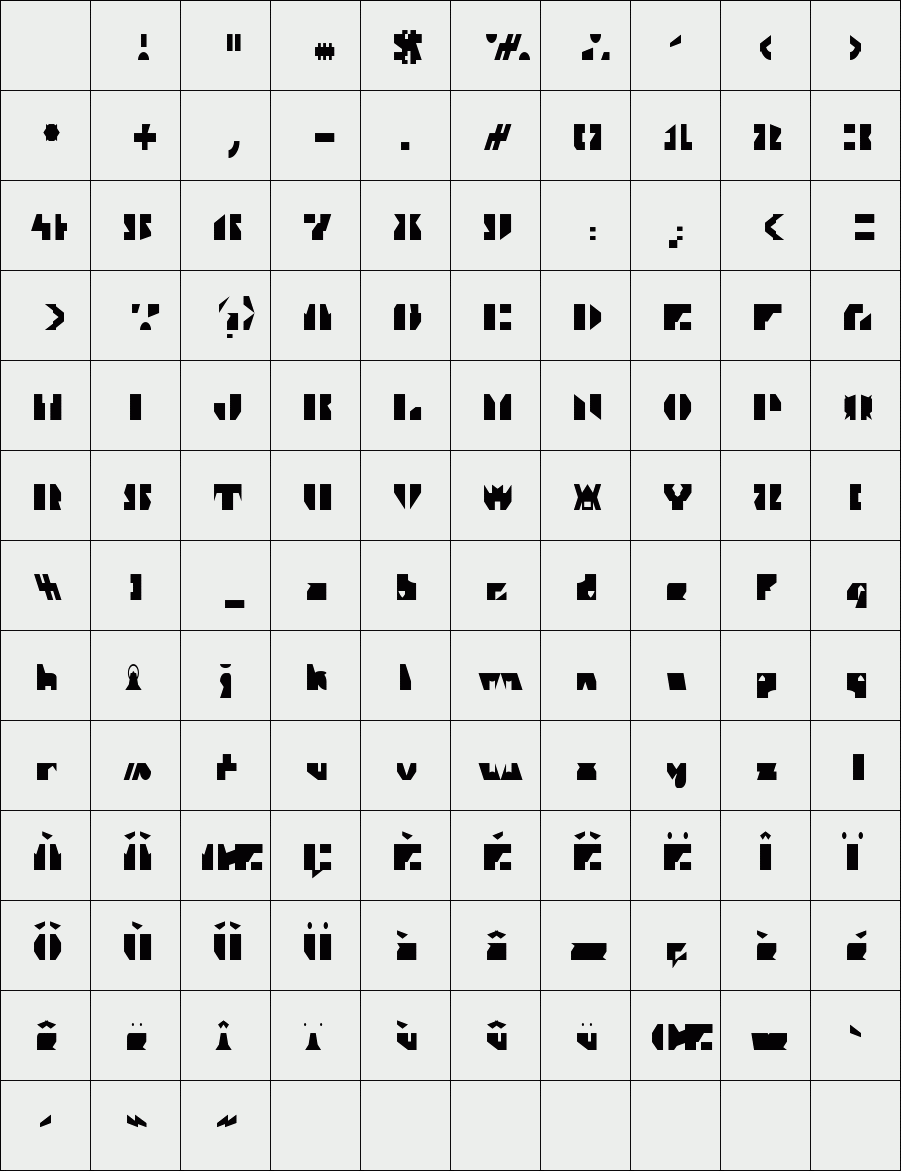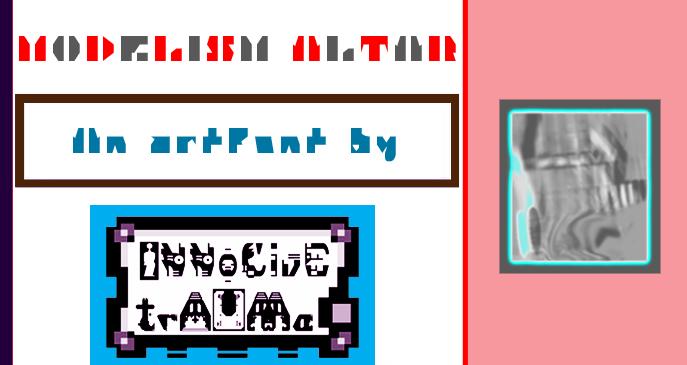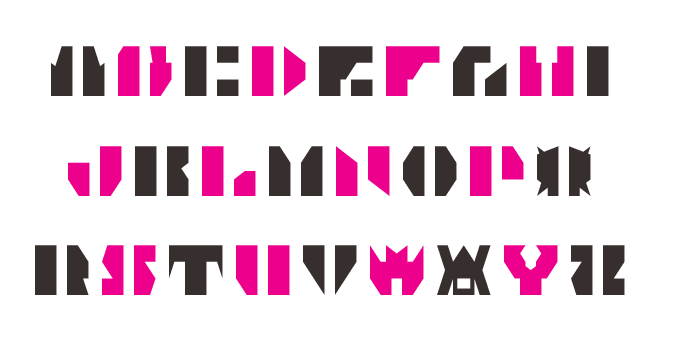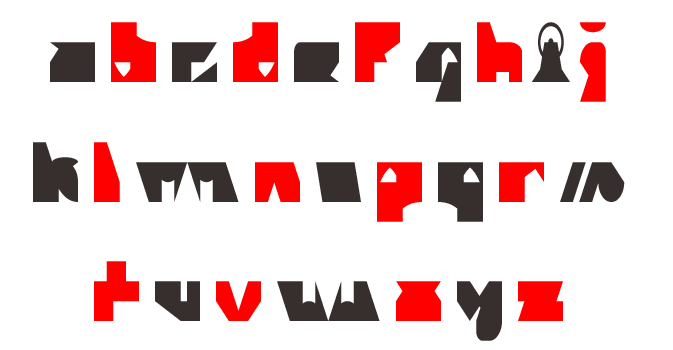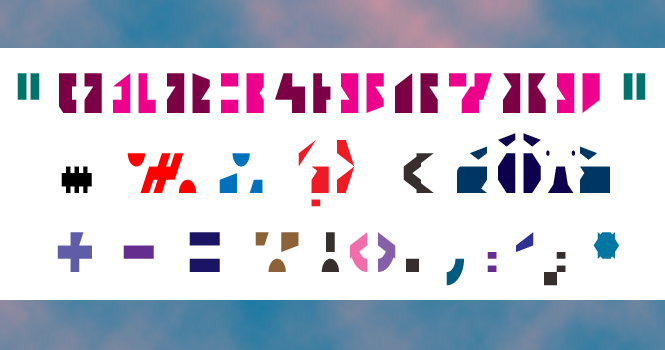
trAUMa 119 / Modelism Altar
"MODELISM ALTAR", like all the "trAUMa" series, works at the frontier between Art & Type Design, Figuration & Abstraction, each font is a comprehensive world in which every glyph is a "living" entity. But put together they can produce your messages in the most accurate way.